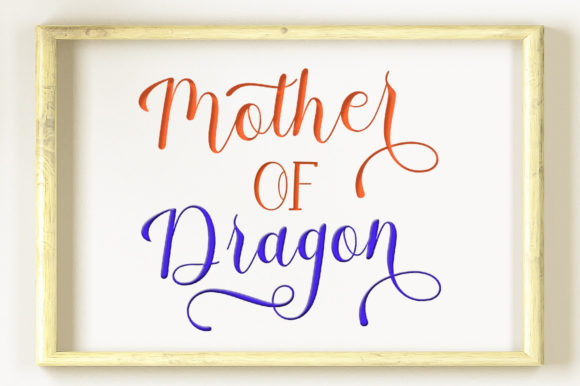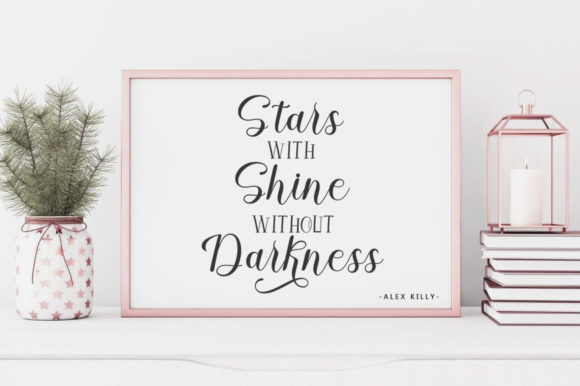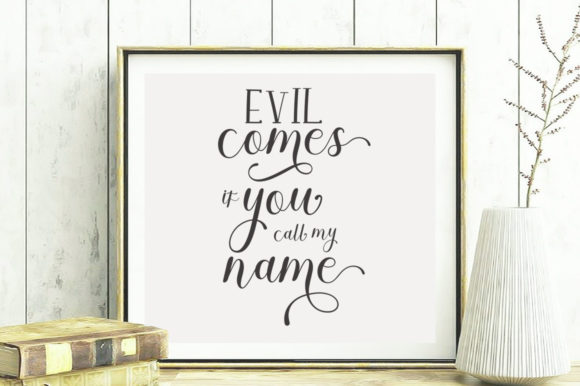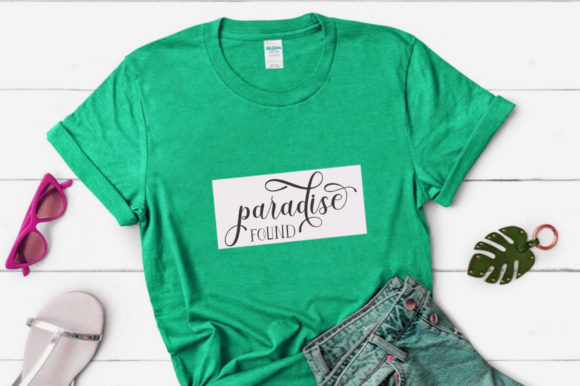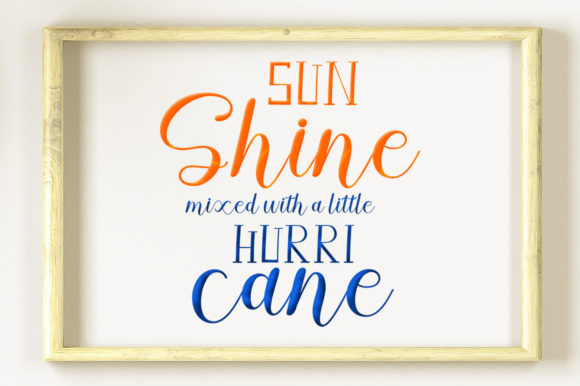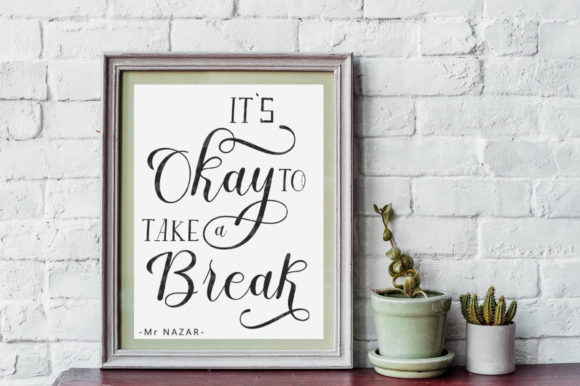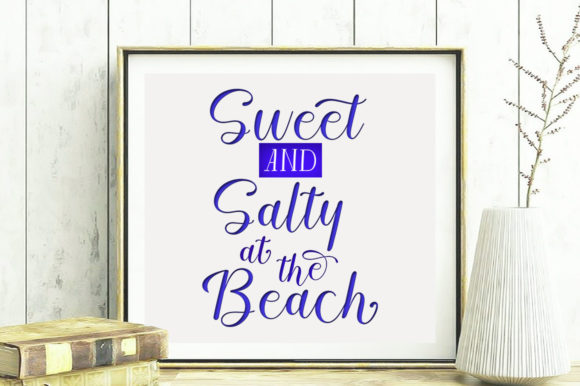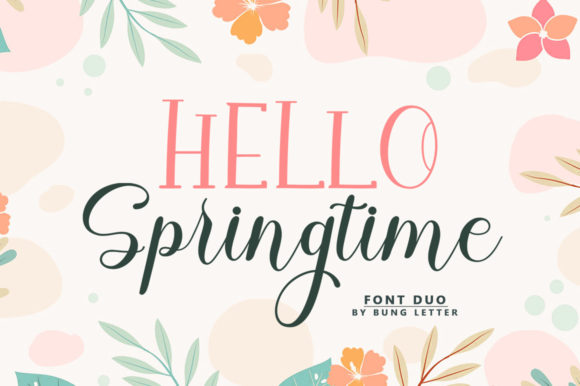
Hello Springtime Font
Hello Springtime is a delightful and jolly duo font that adds a touch of charm and versatility to your designs. With its combination of a playful script font and a classic serif font, this duo font offers a wide range of creative possibilities, elevating your designs to new heights.
The script font in Hello Springtime exudes a sense of joy and liveliness. Its flowing and whimsical letterforms bring a playful and energetic vibe to your typography. Whether you’re designing greeting cards, posters, social media graphics, or any other project that needs a touch of cheerfulness, the script font of Hello Springtime will instantly bring a smile to your audience’s faces.
On the other hand, the serif font in Hello Springtime adds a touch of sophistication and elegance to your designs. With its classic and timeless letterforms, the serif font provides a sense of balance and stability. It is perfect for creating headings, titles, and other elements that require a more refined and polished look.
The versatility of Hello Springtime lies in its ability to harmoniously blend the script and serif fonts together. Whether you choose to use them separately or combine them in your designs, they complement each other perfectly, creating a cohesive and visually appealing composition.
From whimsical and playful designs to more elegant and sophisticated projects, Hello Springtime can adapt to various themes and styles. Its versatility allows you to explore different creative ideas and notice how the font brings them to life with its unique charm.
Overall, Hello Springtime is a lovely and jolly duo font that adds charm and versatility to your designs. With its playful script font and classic serif font, this duo font offers a wide range of creative possibilities, elevating your designs to new levels of beauty and appeal.